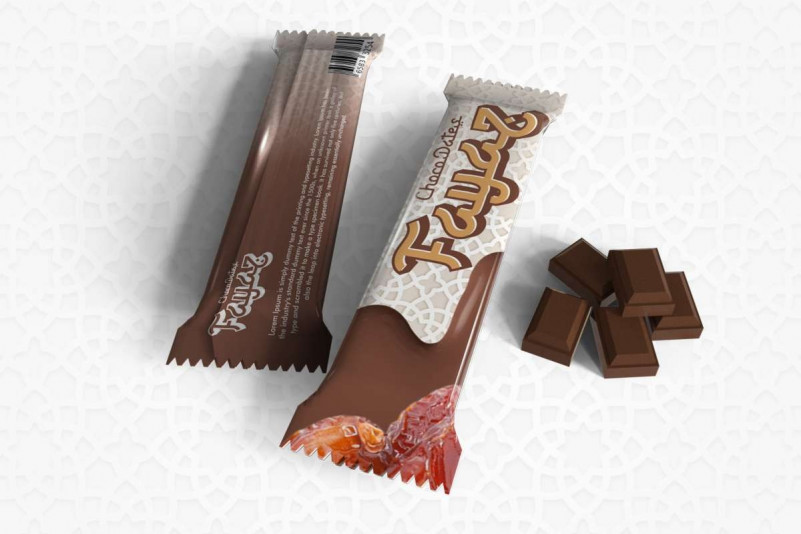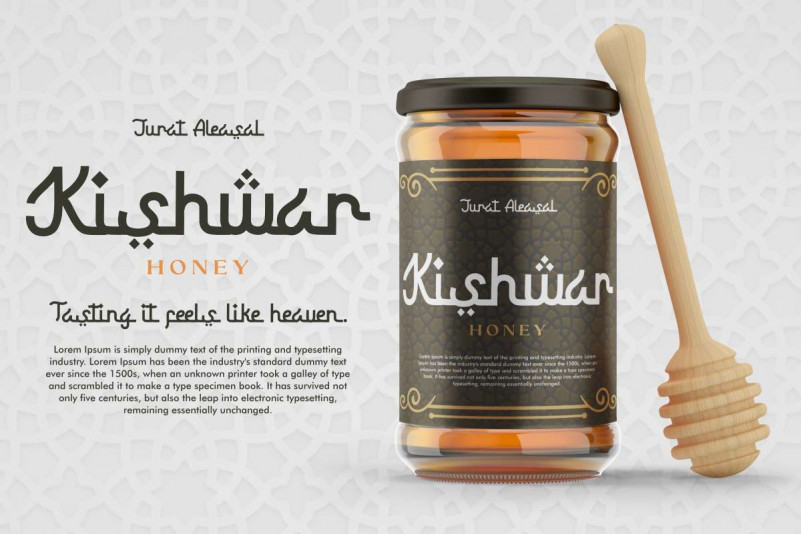
Adore Font
Adore Display Font is a unique display font with romantic and playful feels. It will be perfectly used for Branding, Logo Design, Lettering, Logotype, Clothing, Poster, magazine, packaging, posters, shopping bags, t-shirts, book covers, photography, special events and other design project.